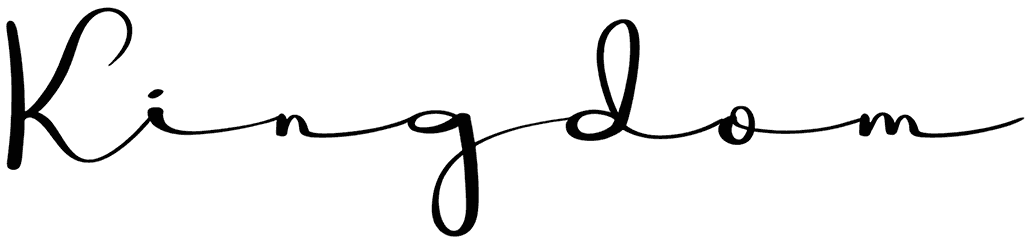
Kingdom Font
Kingdom is a script font with elongated connections that has a distinct emotional connotation. This handwritten font is designed in an advanced way and can change the understanding of a text.
The stretched horizontal lines in this font and its illegibility need more time to read the letters, and even a short word is read more slowly. For this reason, it looks very impressive for designing memorable and attention-grabbing writings on wedding cards or sports goods.
Kingdom is a beautiful and refined script font. It has a classy, elegant and modern look that can be used for logos, branding, invitations, stationery, wedding designs, social media posts, and much more!